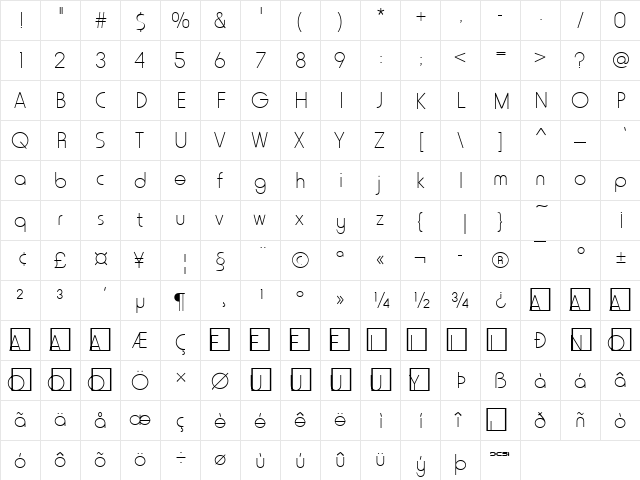
FFX Simple Thin Regular
Design Context for FFX Simple Thin Typeface
FFX Simple Thin is a composed and adaptable typeface that performs quietly and consistently across a wide range of design contexts. Its slender proportions lend an understated elegance to any composition.